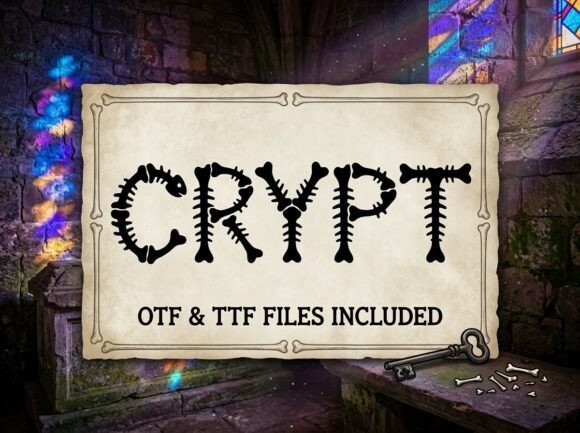
Crafting Fear with Typography
Do you remember the moment when a creepy font choice elevated the entire aesthetic of your horror movie poster or Halloween party invitation? For designers, typography can be a powerful tool to evoke emotions and set the tone for a project. It’s that moment when the right font choice sends shivers down your spine, and you know you’ve nailed it.
Enter Crypt Font, a bone-chilling display font designed to tap into the darker side of human imagination. With its unique blend of anatomical silhouettes and high-contrast linework, Crypt Font is the perfect companion for designers who want to craft a sense of unease and foreboding in their work.
Crypt Font is more than just a font – it’s a tool to unleash your creativity and bring your dark ideas to life. Whether you’re designing for a haunted attraction or a dark fantasy novel, this font delivers a sense of raw, primeval power that’s hard to find elsewhere.
Crypt Font Key Features
Crypt Font Review
Crypt Font is an interesting addition to the world of typography. Here’s my honest take on it.
Crypt Font’s unique blend of modern and distressed elements makes it stand out from the crowd. The intricate details and subtle imperfections add a layer of depth and character that’s hard to find in other fonts.
- The font’s versatility makes it suitable for a wide range of designs, from minimalist logos to gritty street art.
- The weight and contrast options provide plenty of flexibility for adjusting the font’s appearance to suit different design needs.
- The font’s digital quality is excellent, making it easy to use and manipulate in various design software.
While Crypt Font has a lot to offer, there are some limitations to consider.
- The font’s distressed elements may not be to everyone’s taste, and some users may find them distracting or overwhelming.
- The font’s weight and contrast options can be a bit overwhelming, making it difficult to choose the perfect combination for a design.
- The font’s uniqueness can also be a double-edged sword – it may not be widely recognized or supported by all design software or platforms.
Crypt Font is a bold and intriguing font that’s sure to make a statement in any design. While it may not be for everyone, it’s definitely worth considering for projects that require a unique and eye-catching look.
Getting the Most Out of Crypt Font
To get the most out of Crypt Font, experiment with different font sizes, styles, and colors. Use it to add a touch of mystery or intrigue to your designs. You can also combine Crypt Font with other fonts to create a unique and eye-catching look.
Crypt Font is perfect for:
- Creating cryptic messages or puzzles
- Add a touch of mystery to your designs
- Creating a retro or vintage look
- Adding a sense of intrigue to your branding